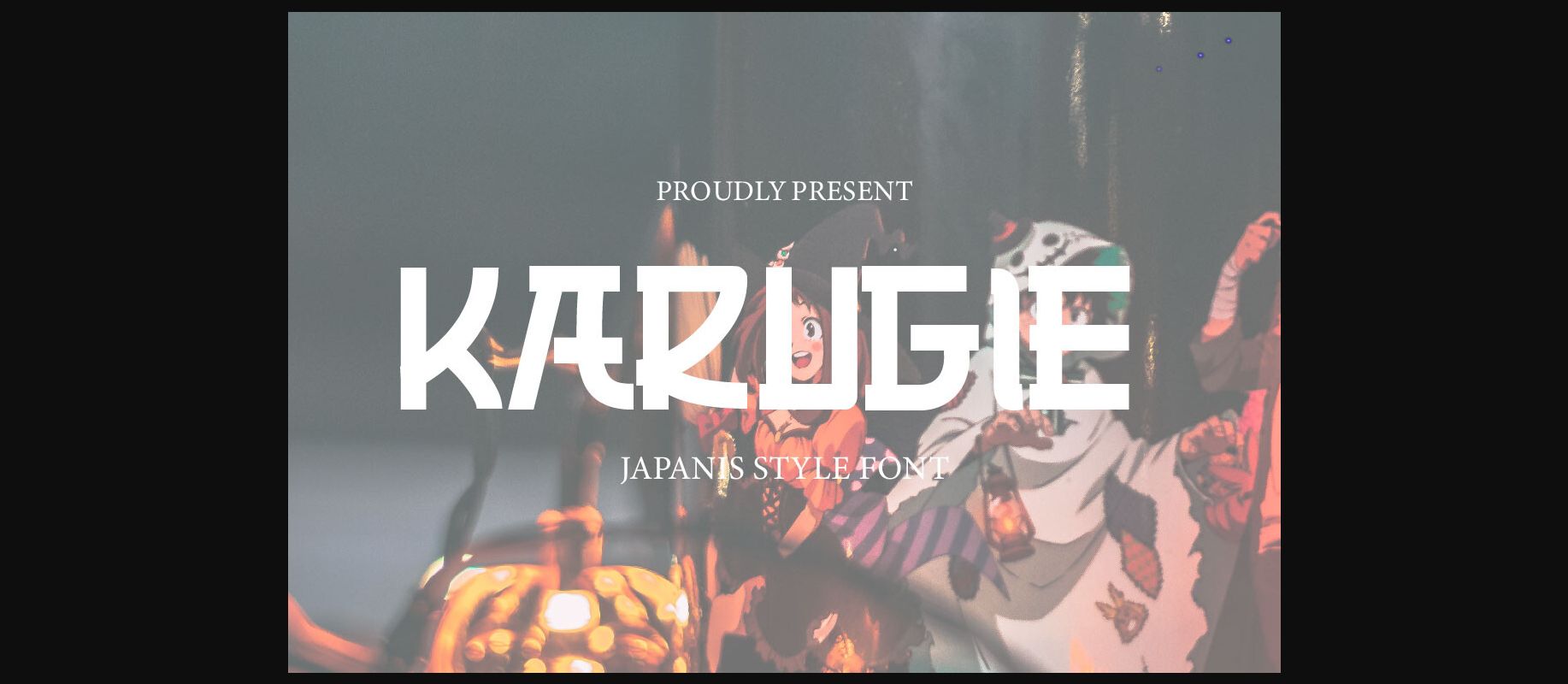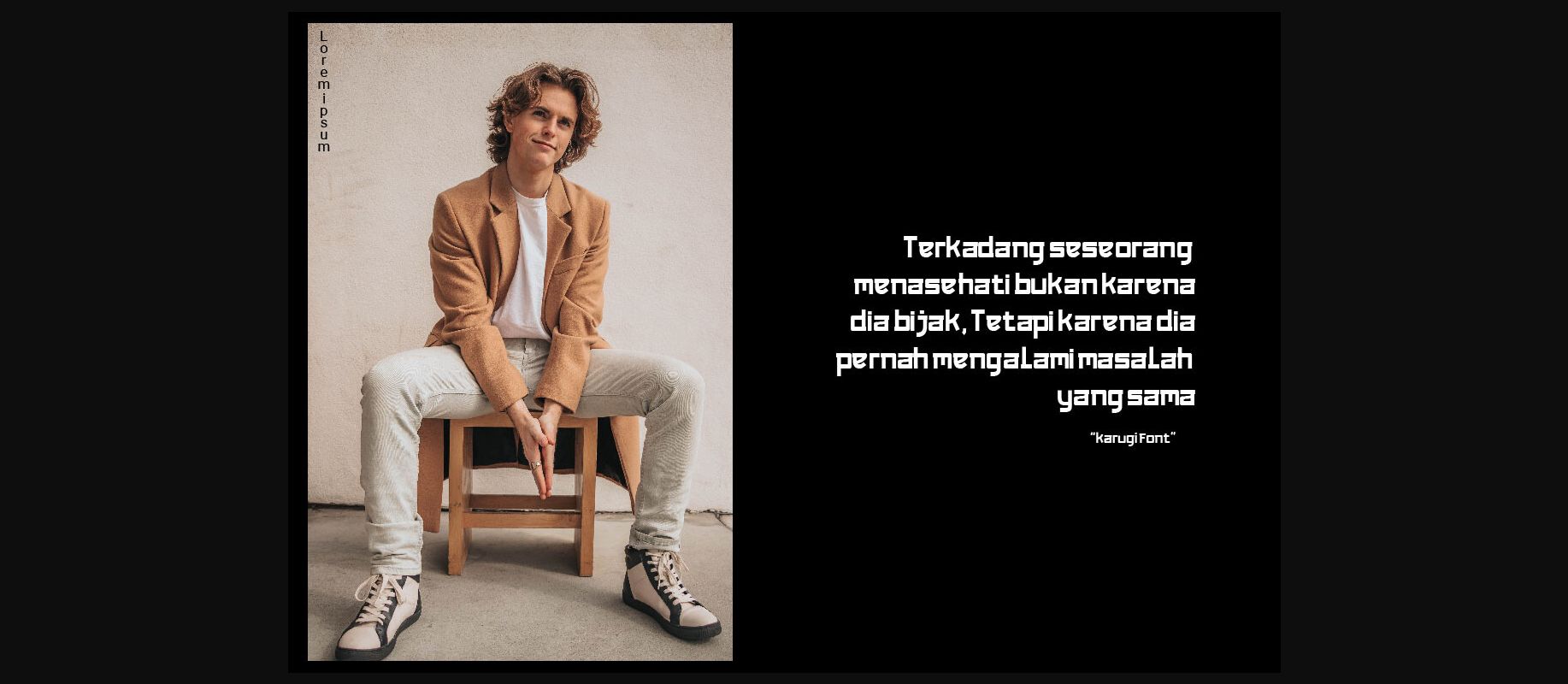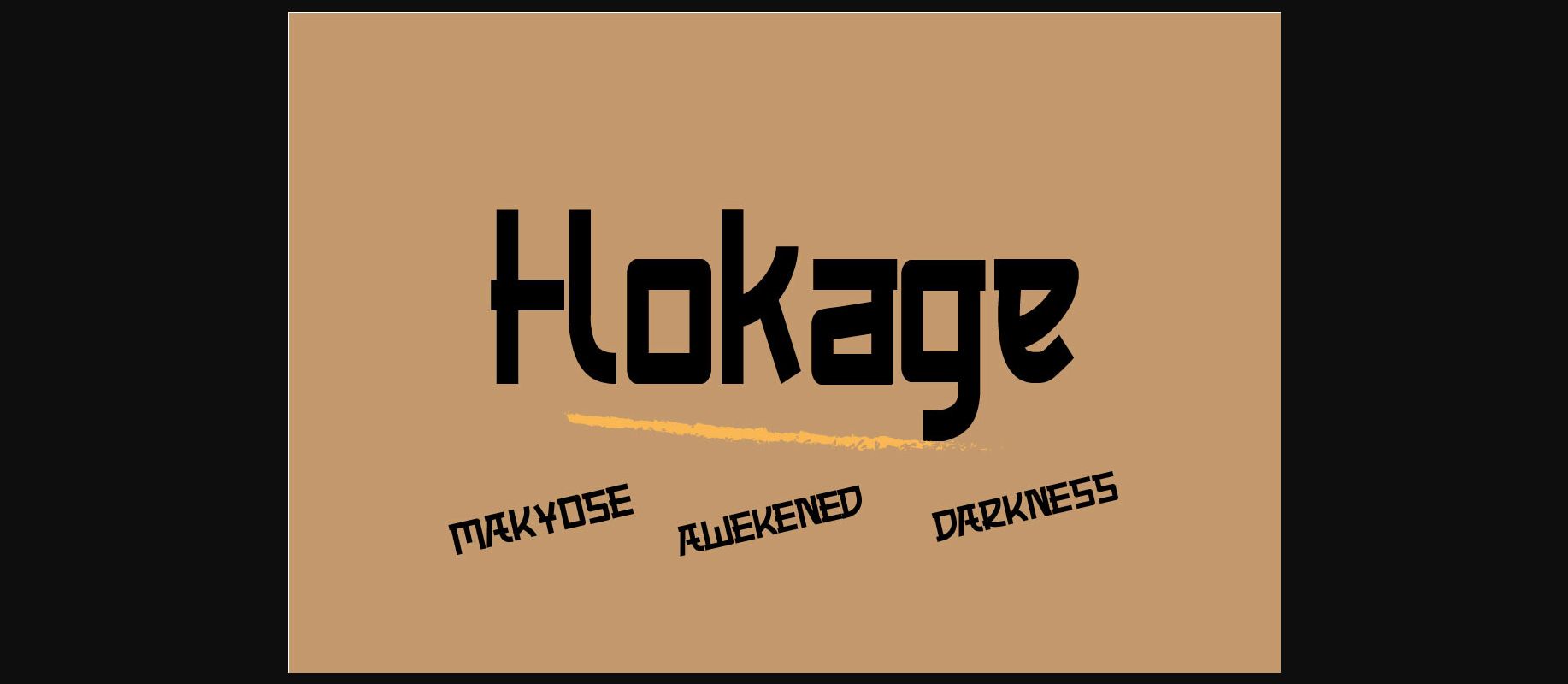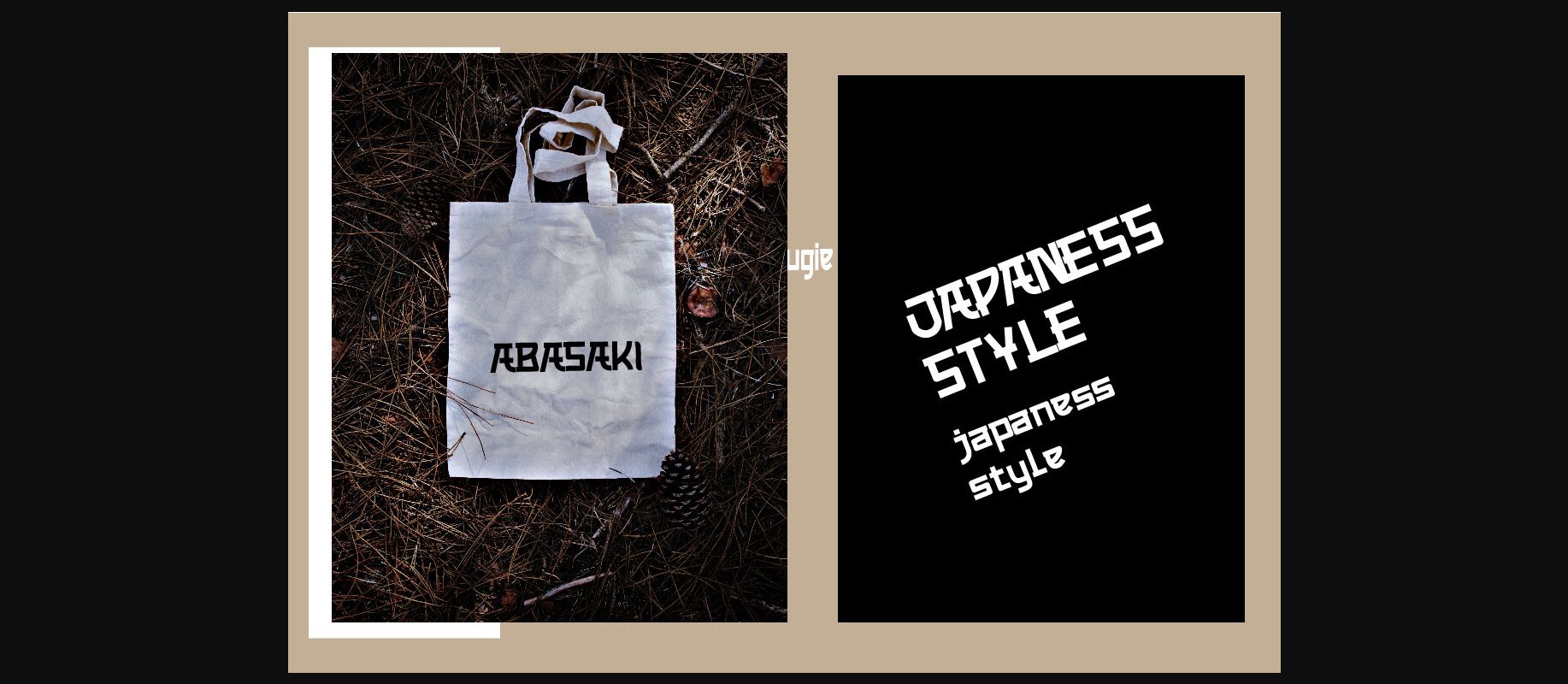
About Karugie Font
Introduction Karugie font . is a faux-Japanese font featuring traditional Japanese features. Inspired by traditional Japanese culture and style, your project will be unique, easy to comprehend, and recall by a large number of people, ensuring that the great opportunity will be entirely yours. Best used as Logotypes, food banners, branding, brochure, posters, movie titles, book titles, quotes, and more.